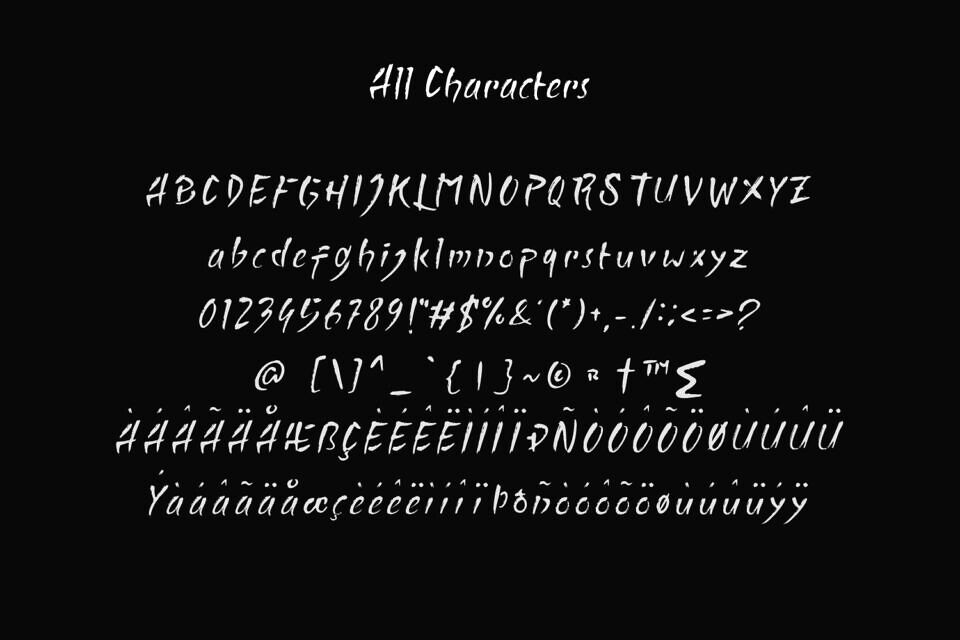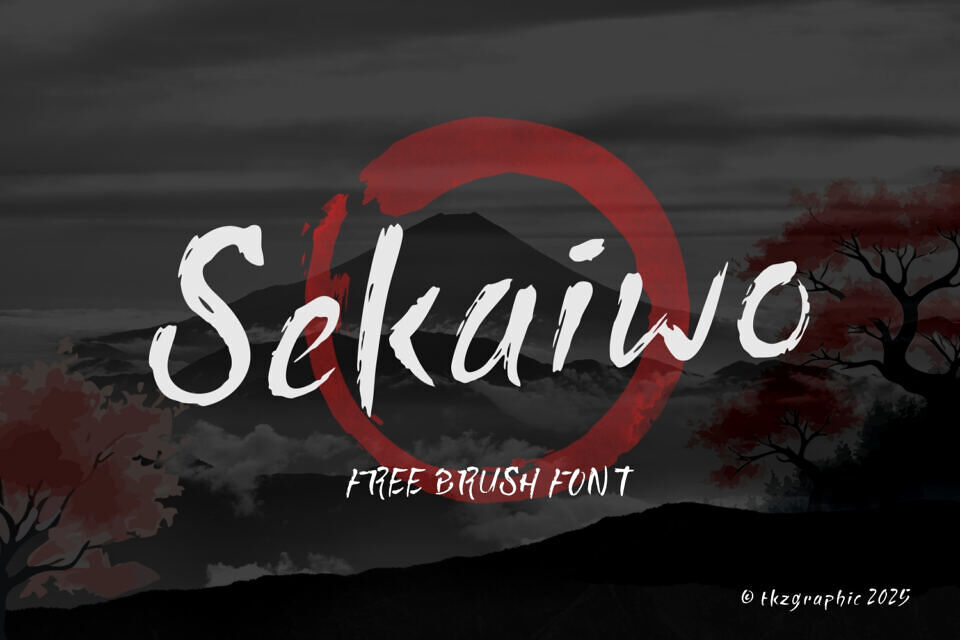
The Sekaiwo Font is a striking free brush font featuring a bold, hand-painted style with a Japanese aesthetic. Its characters include a wide range of uppercase and lowercase letters, numbers, symbols, and accented characters, all rendered in a dynamic, calligraphic stroke.
The strokes vary in thickness, adding a natural, artistic texture, while maintaining legibility. This font blends traditional brushwork with a modern twist, ideal for creative typography.